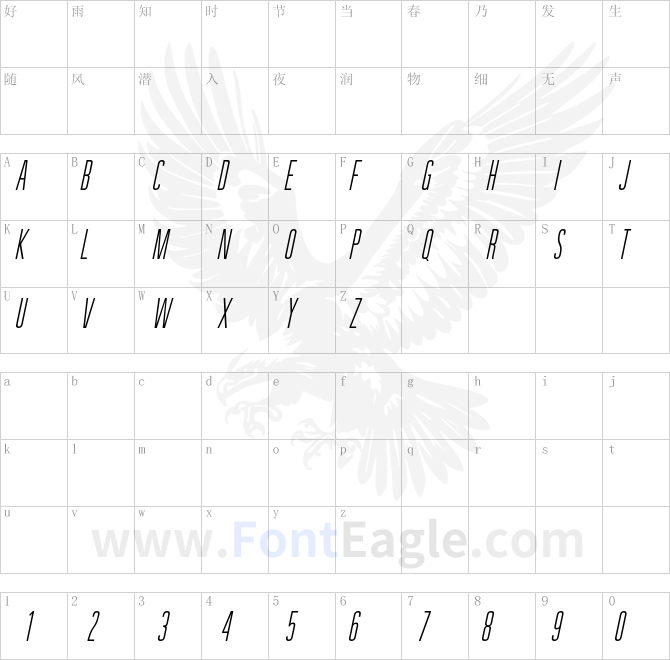
- Font name:Guilder Free
- Font Subfamily ID:TylerFinck@sursly: Guilder Free: 2012
- Font Full Name:GuilderFree-LightItalic
- Postscript:GuilderFree-LightItalic